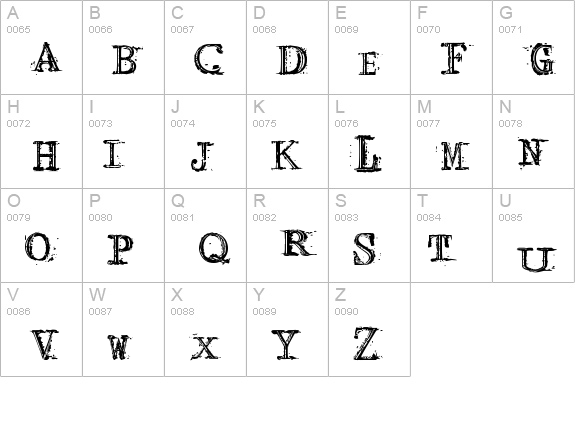
The Arcade Fire font is a dynamic and energetic typeface that captures the spirit of the indie rock band it is named after. With its bold, uppercase lettering and distinctive style, this font is perfect for making a statement in your designs. Whether you're creating posters, album covers, or social media graphics, the Arcade Fire font will add a touch of rebellious flair to your projects. And the best part? It's completely free to download at FontsMarket.com, giving you easy access to this unique and eye-catching font for all your creative endeavors. Stand out from the crowd and let the Arcade Fire font ignite your designs with its fiery personality.